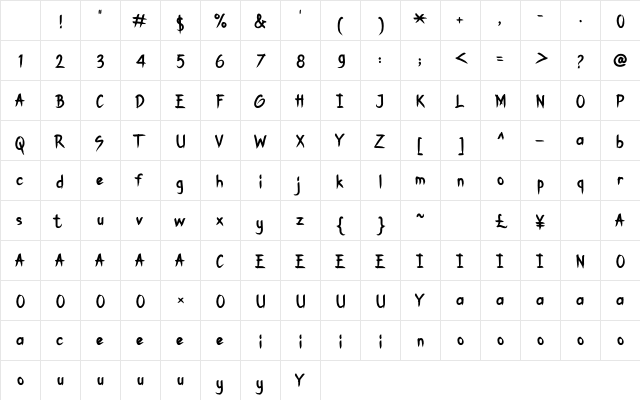
Horror New Year carries an unsettling edge - its distorted letterforms are built to unsettle, perfectly suited to horror, Halloween, and dark creative work.
Font Pairing: Pair with a clean neutral sans-serif for body copy to let Horror New Year's character lead without overwhelming the composition.
Pro Tip: Use Horror New Year at larger display sizes for maximum impact. Consider generous tracking to let the disturbing character of each letterform breathe.